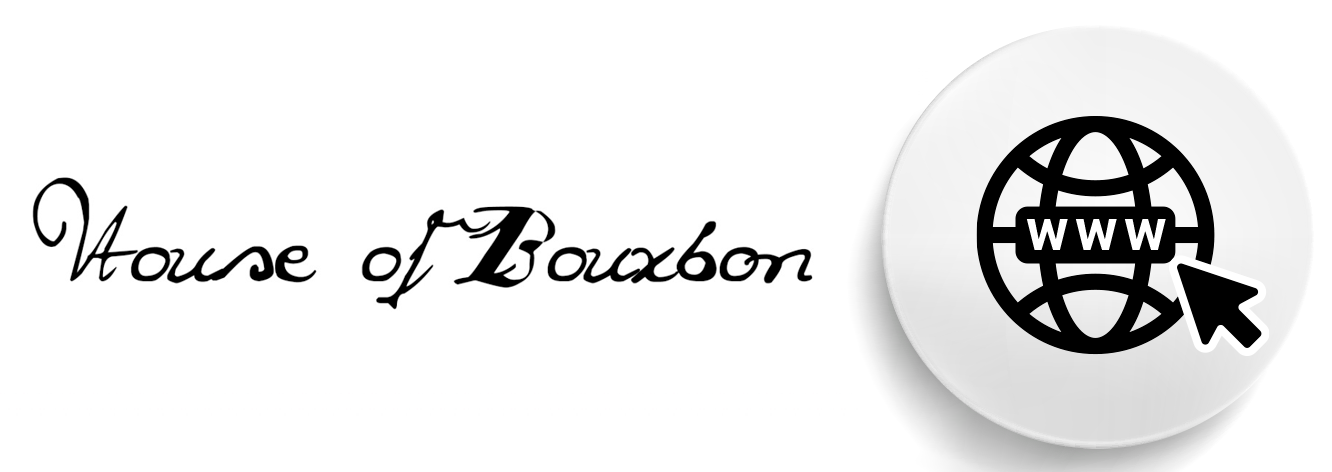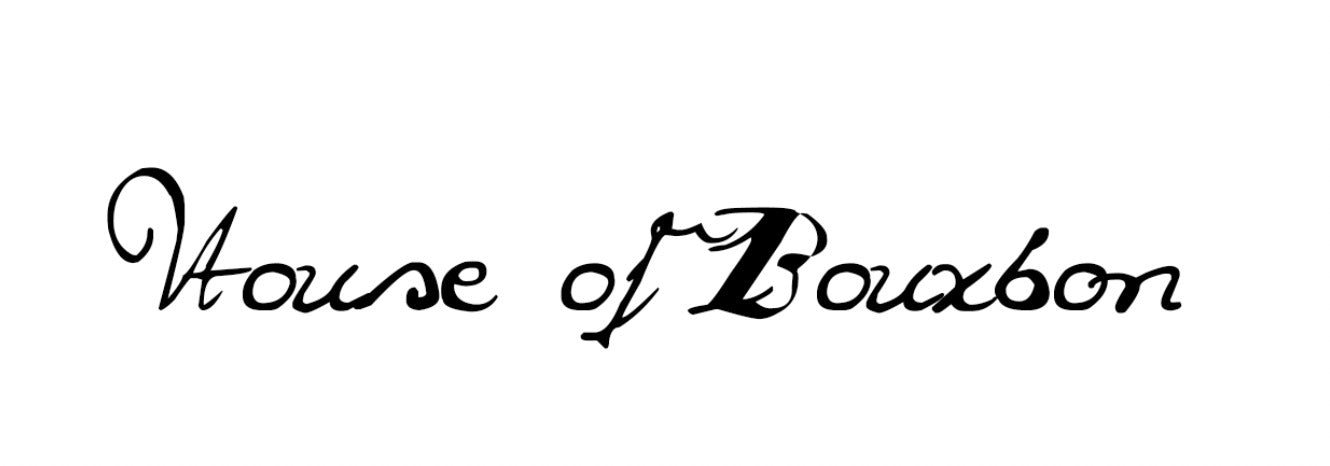
Not to be confused with a certain Kentucky beverage, this font draws its inspiration from a series of eighteenth-century Florida documents, all written after the War of the Spanish Succession, when the House of Bourbon replaced the Habsburgs as Spain’s ruling dynasty.
The letters that make up the House of Bourbon font come from documents housed at Spain’s Archivo General de Indias, as well as notary records from the Archivo Histórico Provincial de Cádiz
The shape and size of the letters found in historical documents varied widely. As such, the spacing for these authentically historical fonts also fluctuates from style to style, with many of the letters extending beyond one or two lines. For best results, we recommend double spacing when using these fonts.
Researched and designed by Sin Barcos, Inc. Programmed by Melissa Morales.